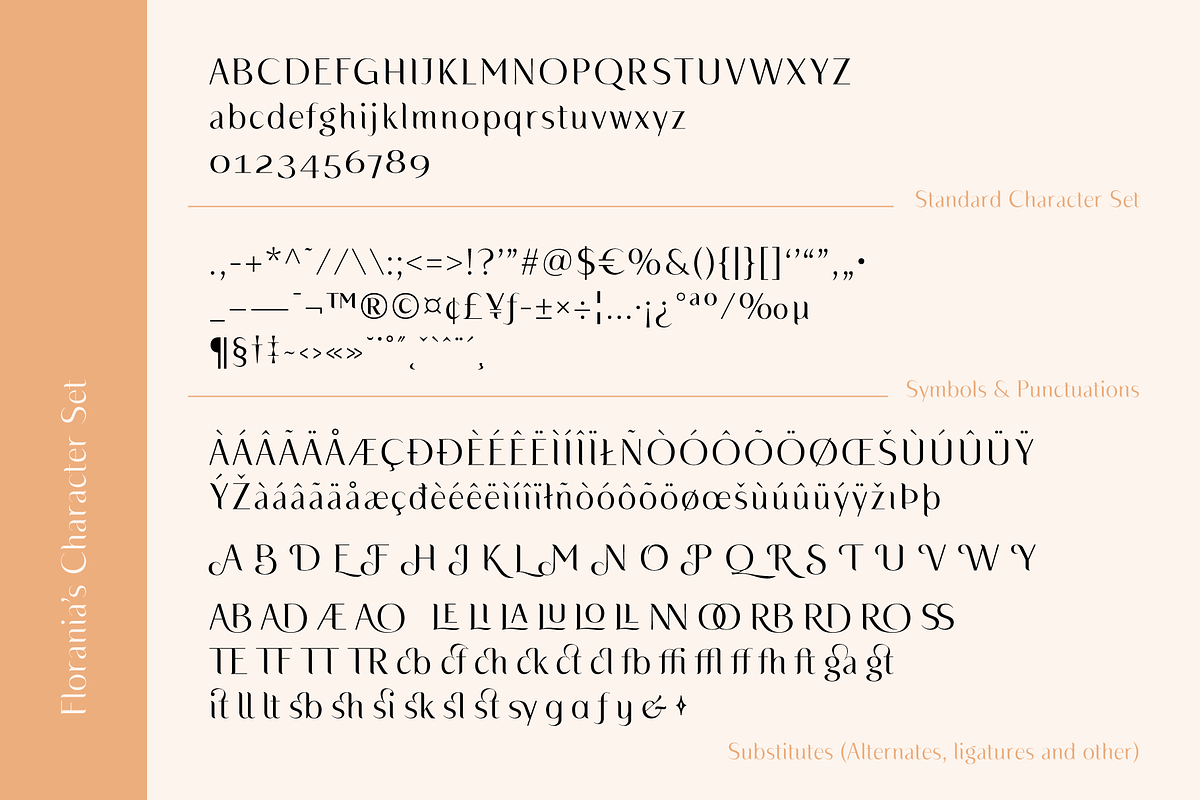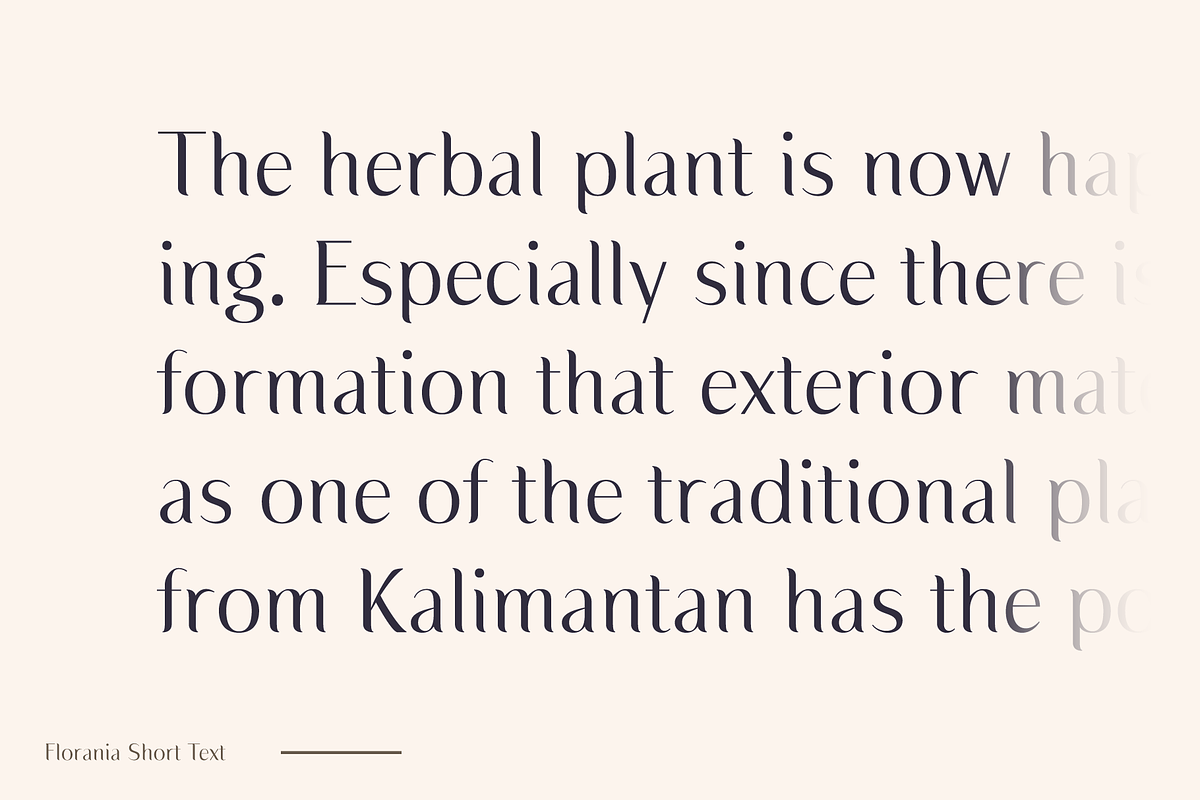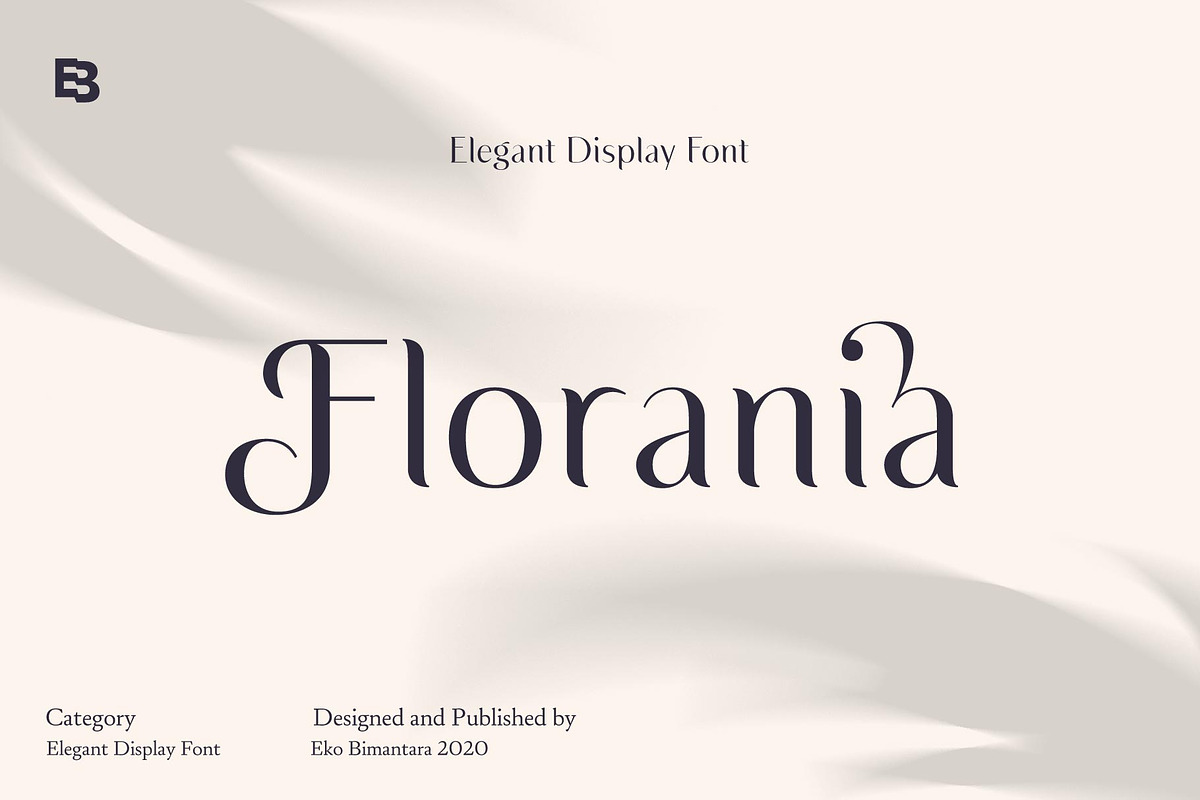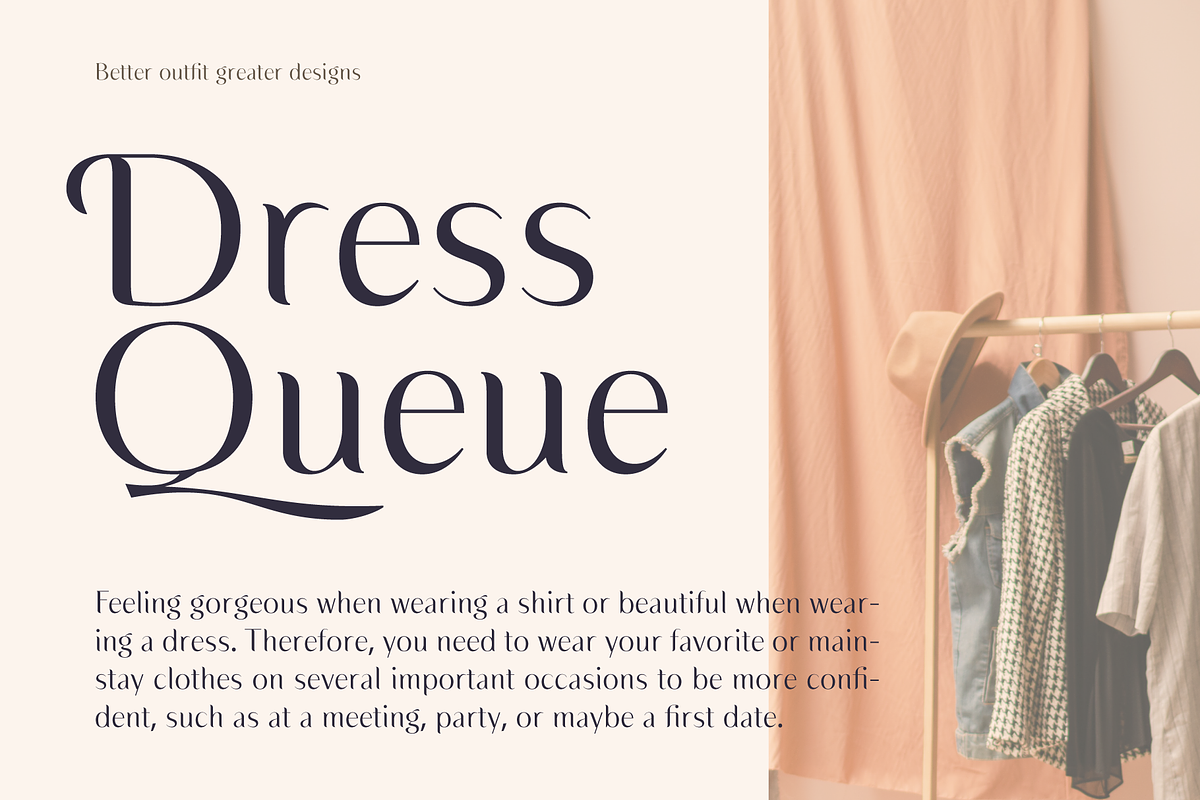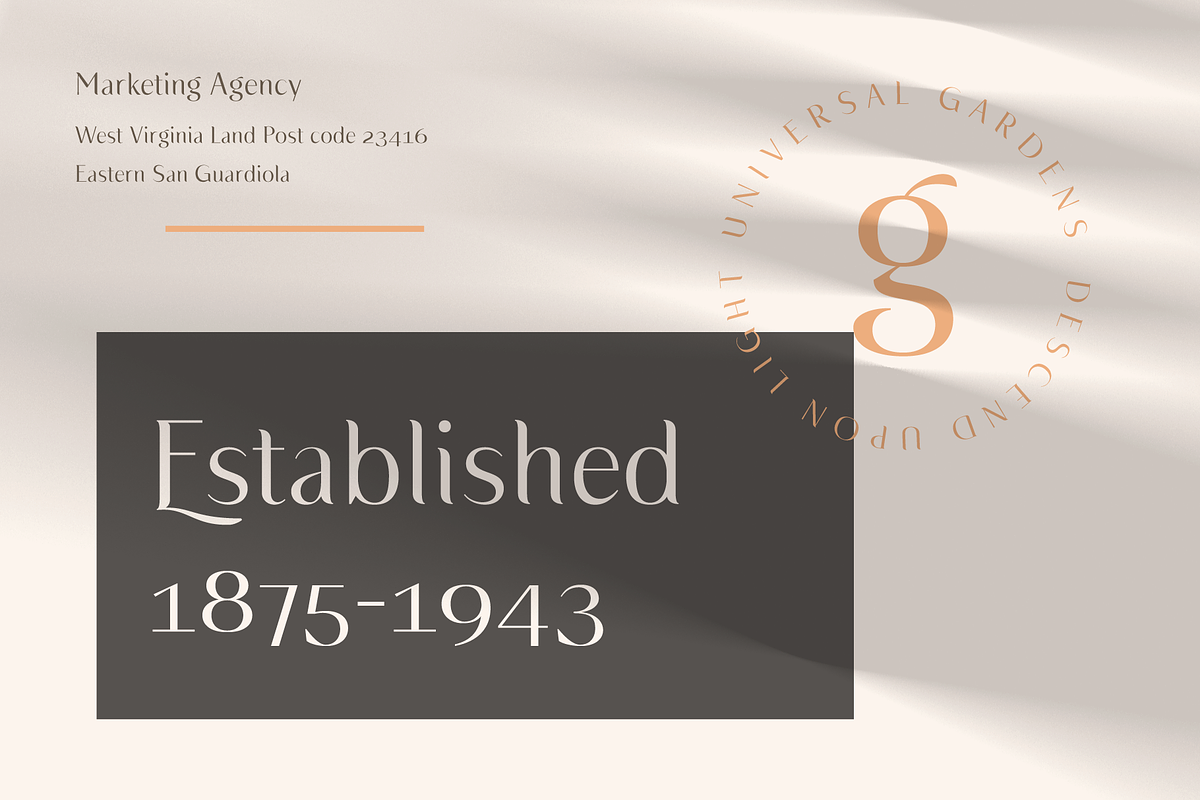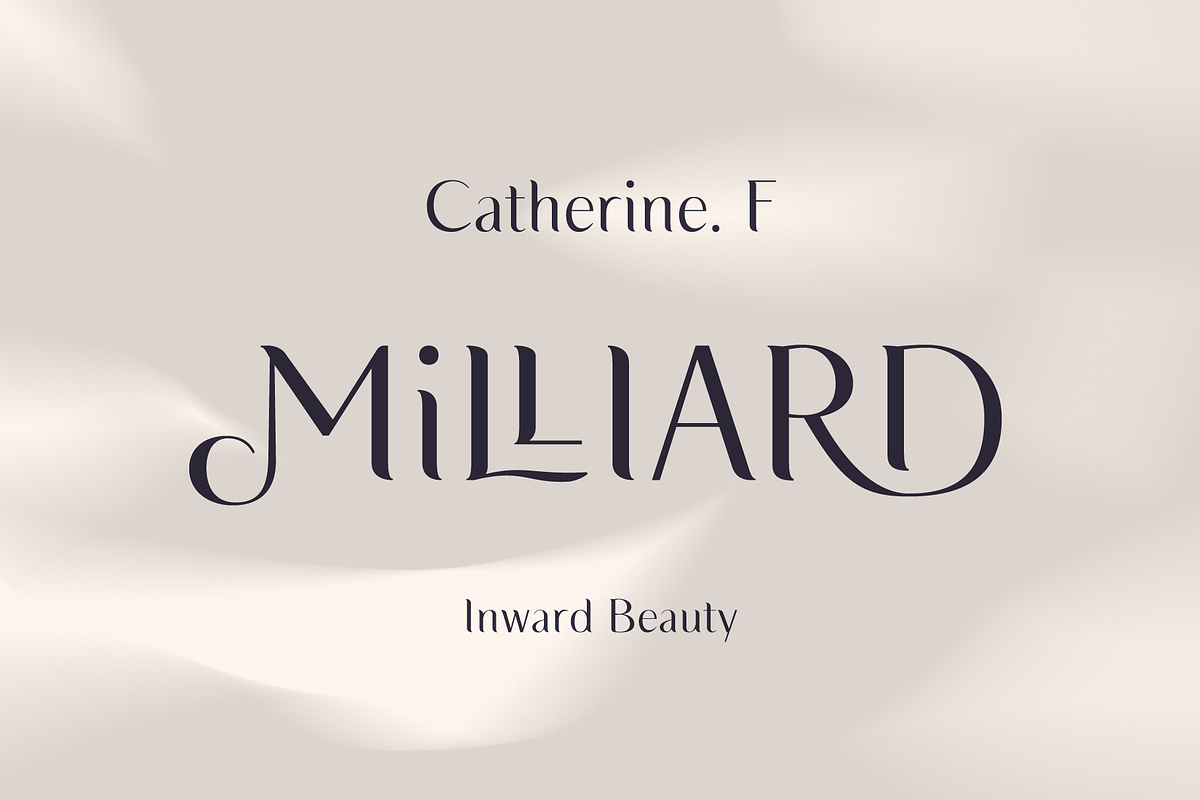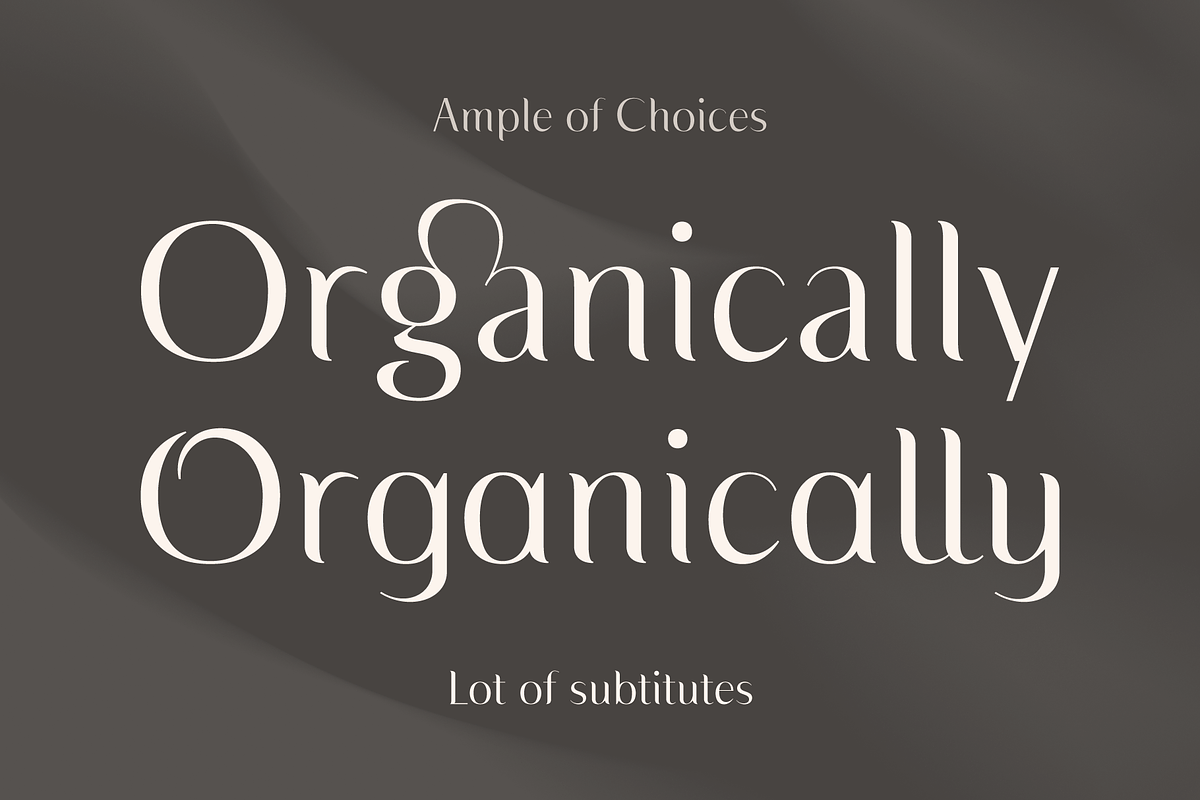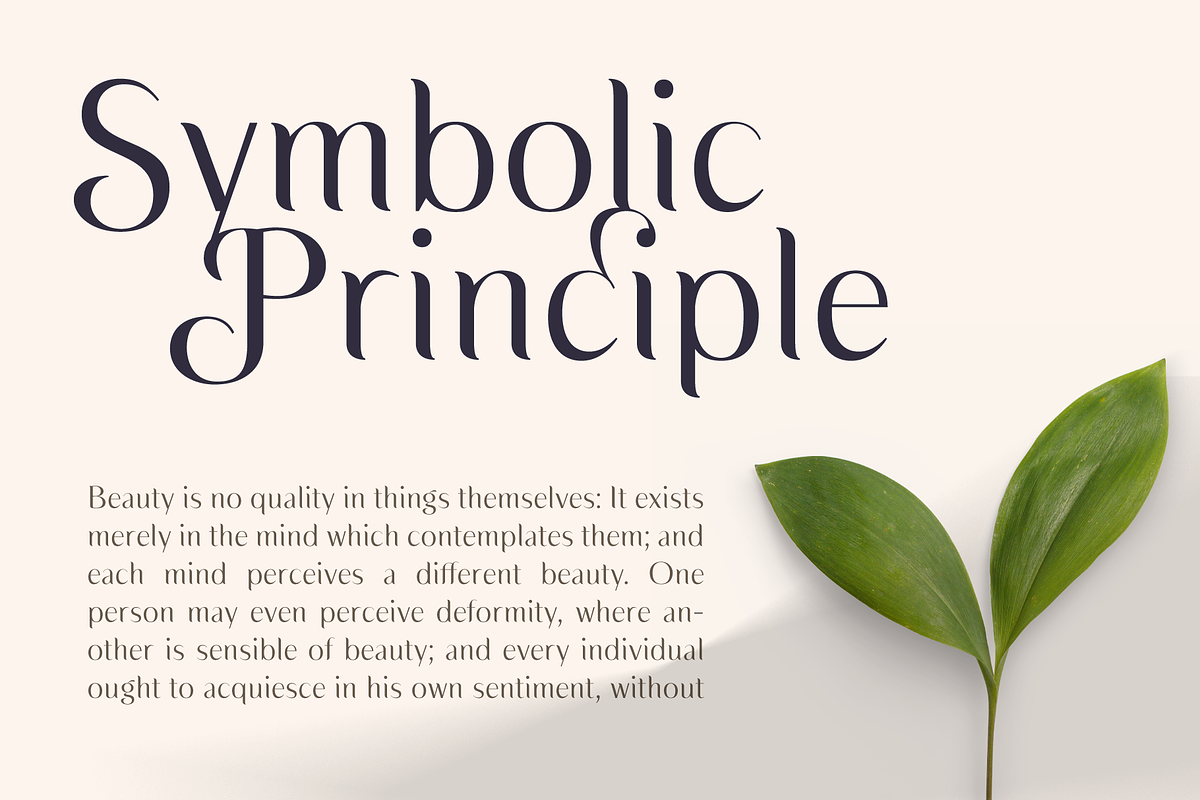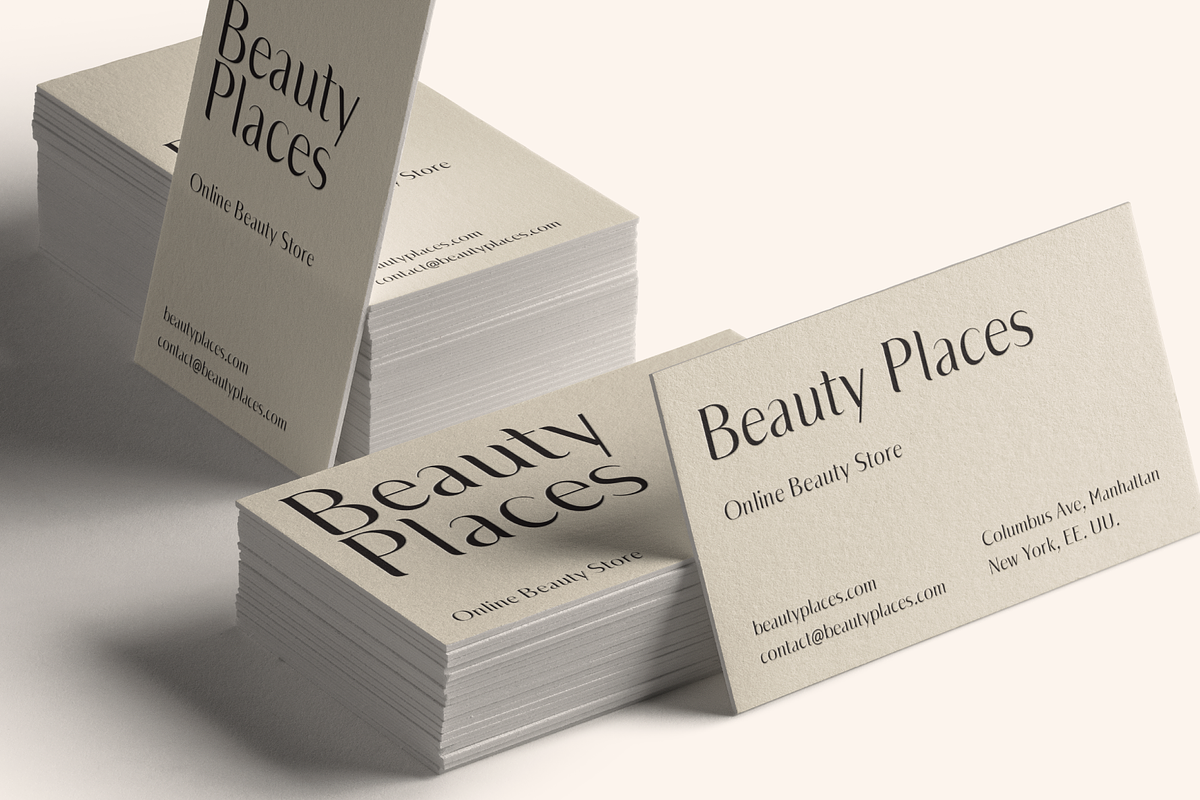
Florania; Elegant Font
Florania is an elegant yet versatile font that shown beauty and classy look. It have lot of alternates and ligature choices with standard latin language coverage. Florania is fit for display, title, large sizes, and short text. Also fit for broad design project such as brand, web, logo, and others.